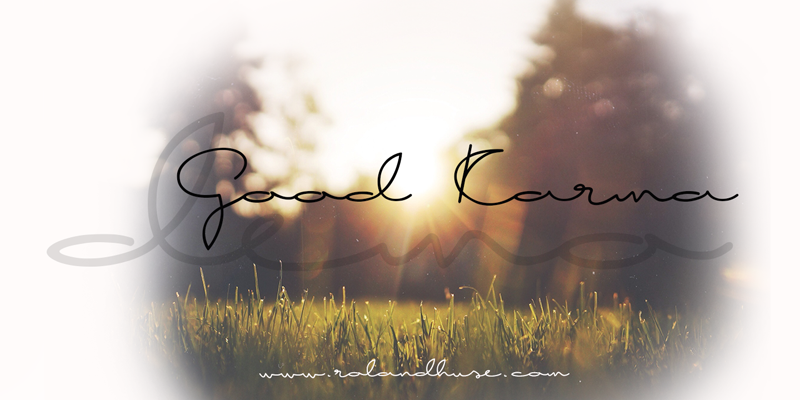
Preview and download Good Karma Font. Created by Runes & Fonts in Script Handwritten styles with Demo license.
GOOD KARMA DEMO is a demo version of a cursive handwriting font. Contains only numbers 0-9 , lowercase a-z and uppercase A-Z. Full version is donationware and only available at http://www.rolandhuse.com Please contatct me if you have any questions or feedback. You MAY NOT sell this font or claim them as your own. You MAY NOT edit or rename this font. You MAY NOT redistribute this font. Thank you & I hope you like this font, Roland http://www.rolandhuse.com https://www.facebook.com/pages/Runes-And-Fonts/123221817784772 |